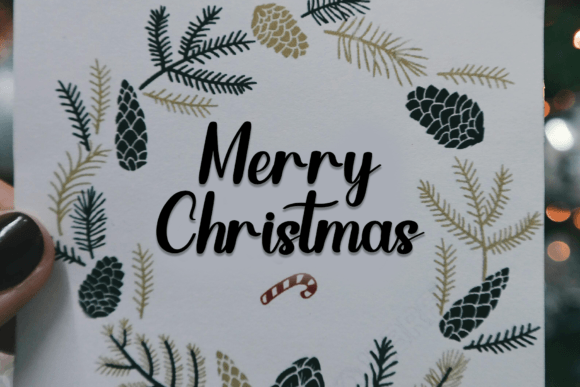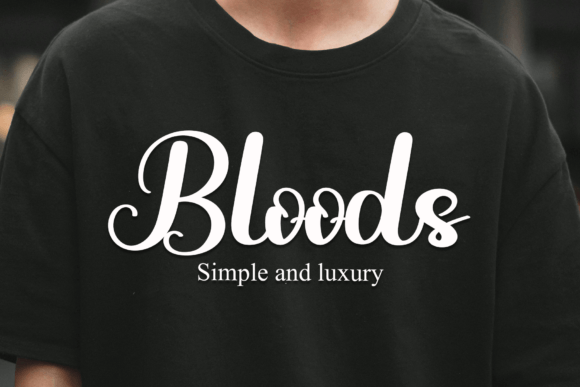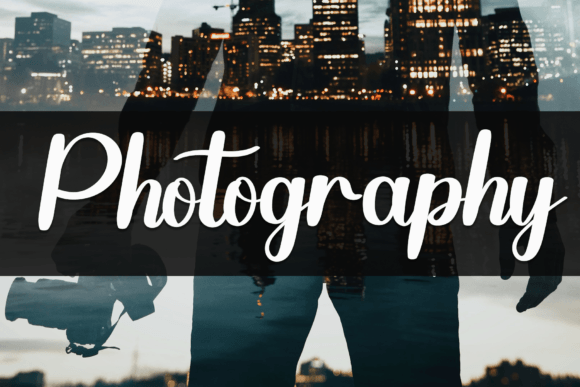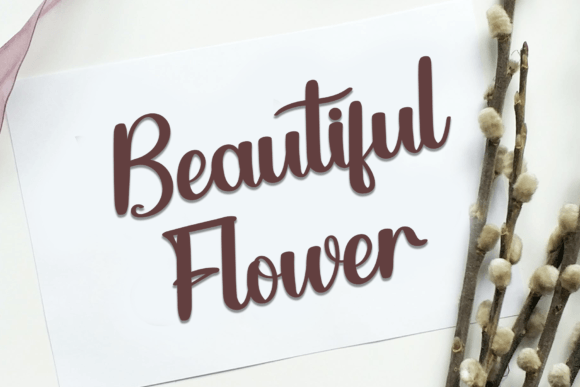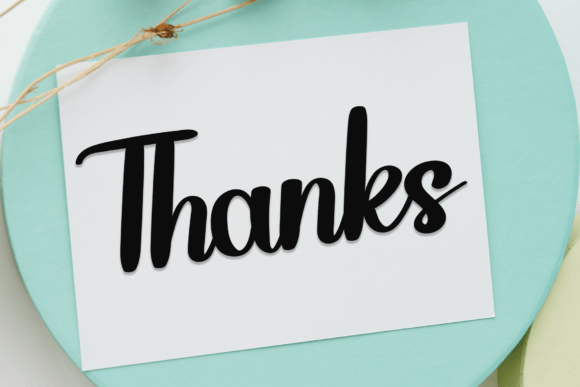
Introduction to Christmas Friday Font
As you sit at your desk, sipping hot cocoa and surrounded by twinkling lights, the creativity starts to flow. You’re in the mood to create something special – a holiday card, a gift tag, or perhaps a festive social media post. The perfect design resource is just what you need to bring your vision to life. That’s where the enchanting Christmas Friday Font comes in – a high-quality typeface that captures the essence of the holiday season.
With its whimsical flair and decorative elements, this font is a valuable addition to any designer’s toolkit. Whether you’re working on a creative project or simply looking to add a touch of magic to your words, the Christmas Friday Font is the perfect choice. Its PUA encoded design makes it easy to access all the amazing glyphs and ligatures, allowing you to get creative with your typography.
Key Features of Christmas Friday Font
- High-quality, unique design perfect for creative projects and holiday-themed designs.
- Transparent background allows for seamless integration with any design or image.
- Includes a range of festive characters and symbols, ideal for Christmas and winter-themed designs.
- Perfect design resource for graphic designers, artists, and digital creators looking for a unique and festive font.
Honest Review: Christmas Friday Font
I recently came across the Christmas Friday Font while searching for a design resource for a creative project. I was immediately drawn to its high quality and festive vibe. The font is perfect for adding a touch of holiday cheer to any design, from social media graphics to invitations.
- ✨ High-quality design with clear, crisp lines
- ⚠️ Limited to a single weight, which may not be ideal for more complex designs
Overall, I was impressed with the Christmas Friday Font. While it may not be perfect for every project, it’s a great addition to any design library. With its high-quality design and transparent background, it’s easy to see why it’s a popular choice among designers. Whether you’re working on a free project or a paid gig, the Christmas Friday Font is definitely worth considering.
The Christmas Friday Font is perfect for creating holiday-themed designs, such as invitations, cards, and social media graphics. You can also use it to add a festive touch to your branding and marketing materials.